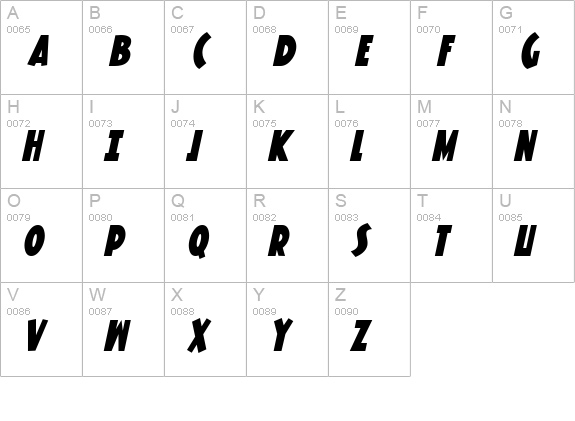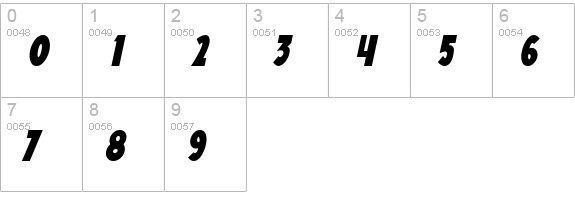
Knuckle Sandwich Italic is a distinctive, italic variant in the Knuckle typeface family \xE2\x80\x94 well suited to design and typography projects.
The Knuckle Sandwich Italic font is a striking and bold typeface that exudes a sense of edgy creativity and modern flair. Its slanted design adds a dynamic touch to any project, making it perfect for eye-catching headlines, posters, and branding materials. With its unique and playful aesthetic, Knuckle Sandwich Italic is sure to make a statement and leave a lasting impression on your audience. Best of all, this fantastic font is available for free download at FontsMarket.com. So don't miss out on the opportunity to add this versatile and stylish typeface to your collection today!